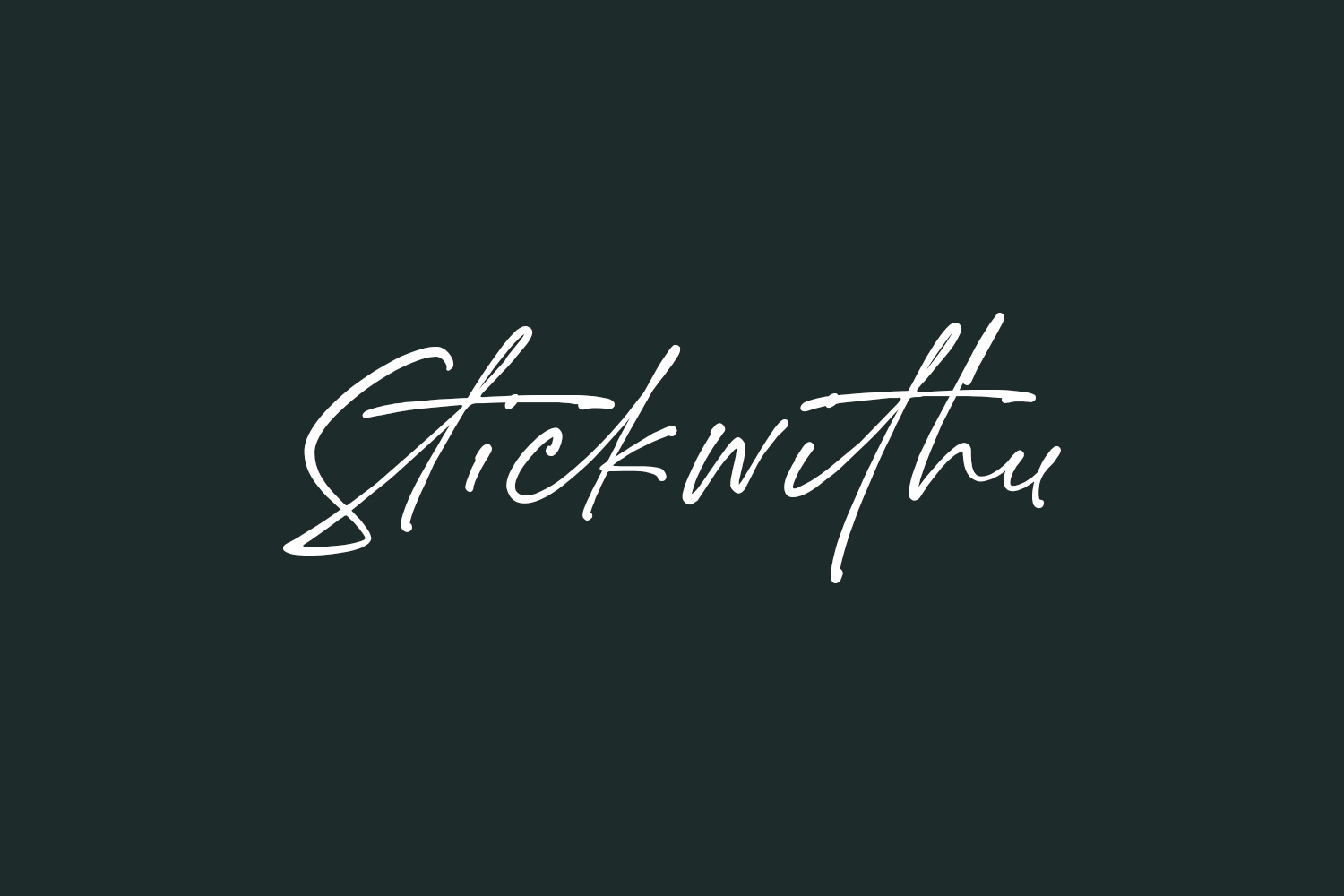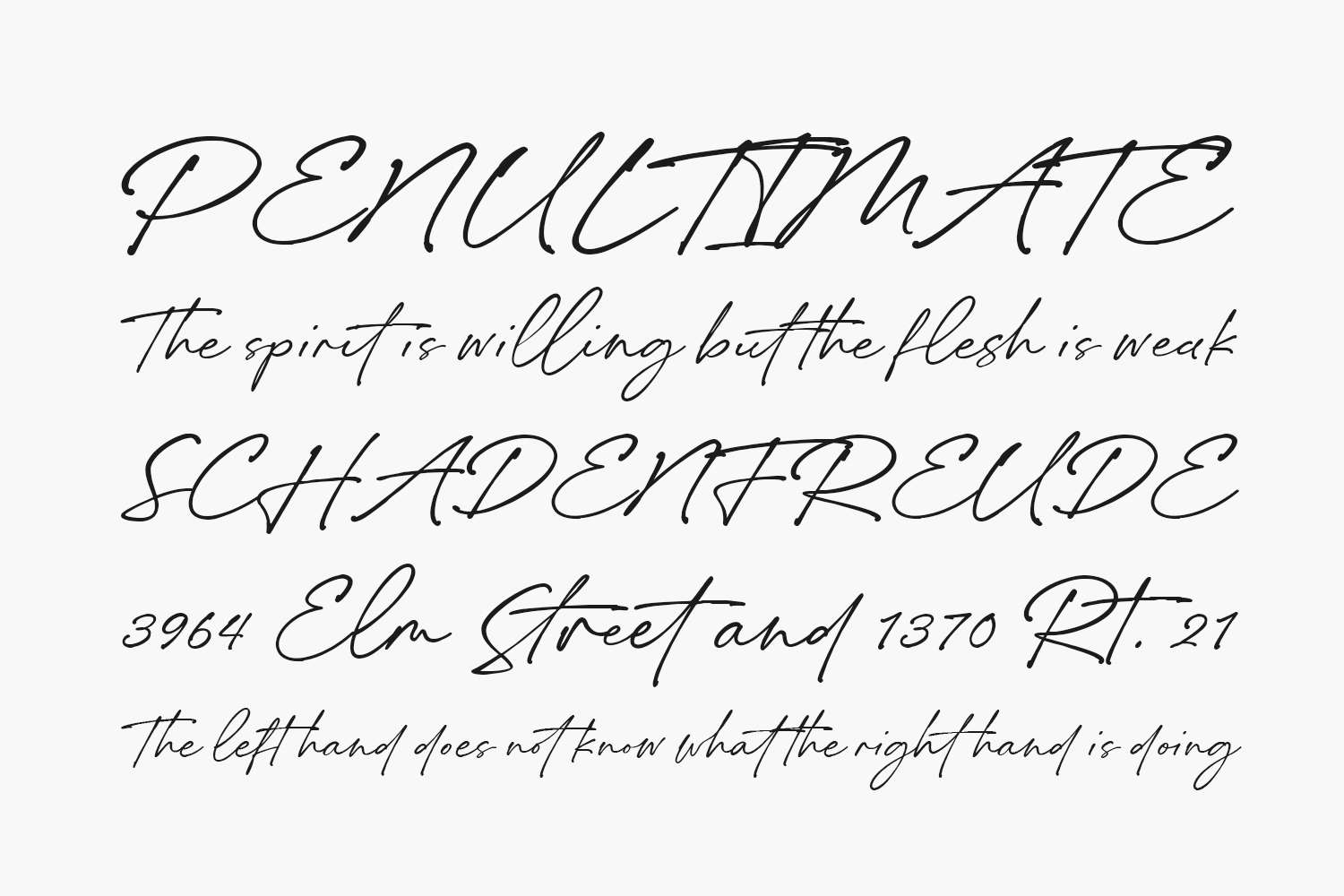
Stickwithu Free Font is a splendid handwritten font especially created for designers who want to write beautiful sentences. A little chic, a little classy, Stickwithu is a must-have for any handwritten font collection. Stickwithu Free Font is free for personal use only. Please purchase the full version for commercial use.
Designed by Redy Studio